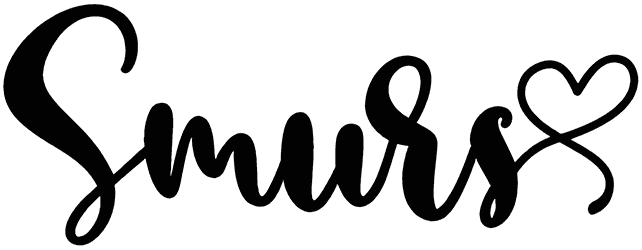
Smurs Font
You have a nice chance to give a smooth and stunning face to your words and make them customized with this handwritten font. The Smurs font’s characters are modern, curvy, and adorable, and you can count on them for many projects, from a daily Instagram story to a kids’ party poster. Benefit from this Valentine’s Day font and create amazing layouts.